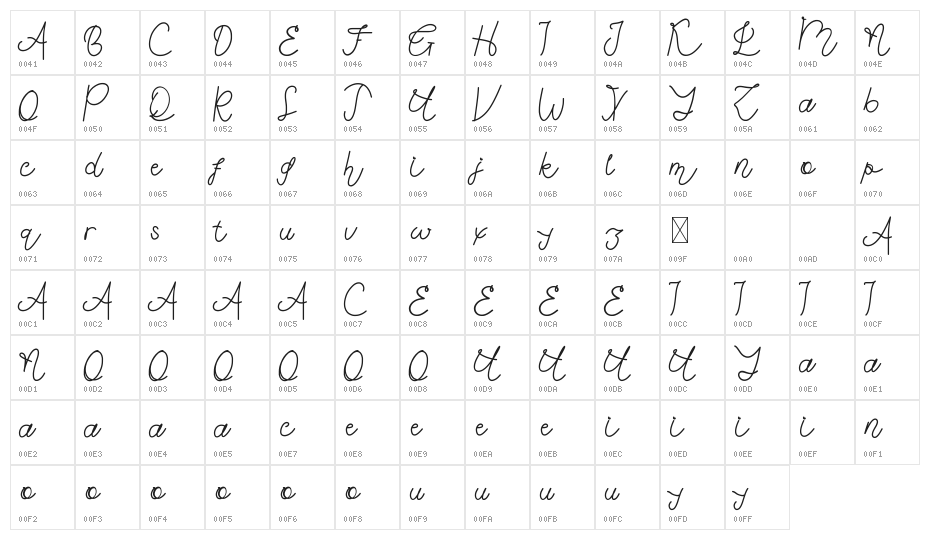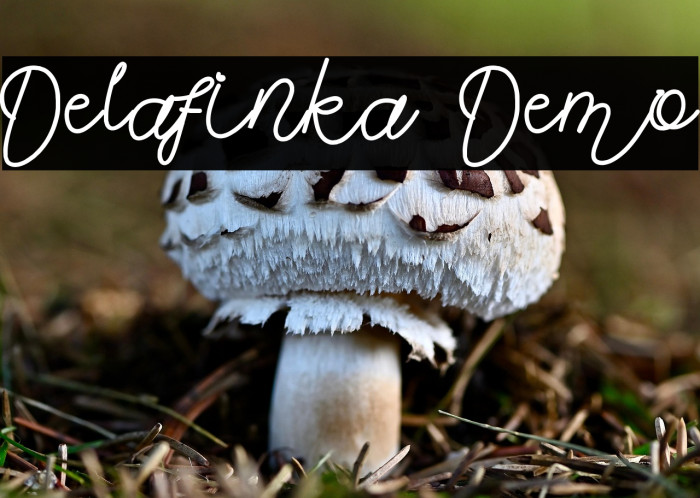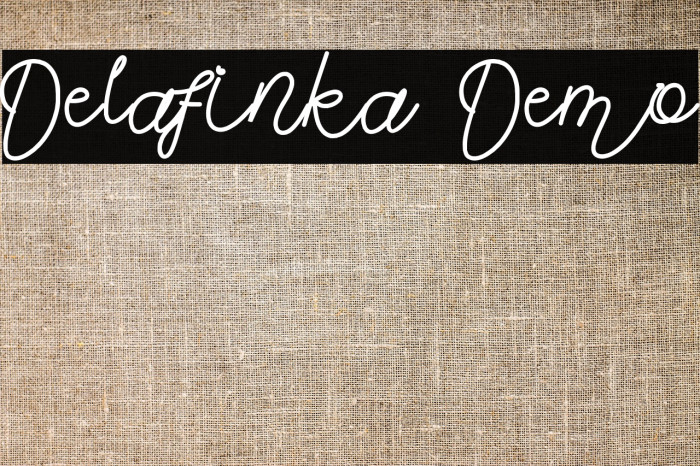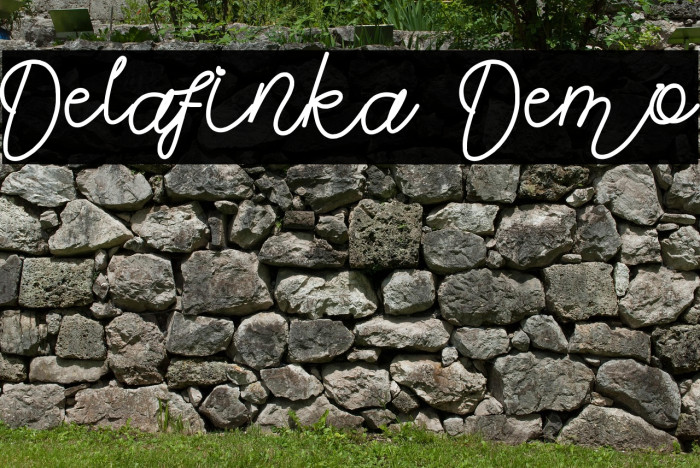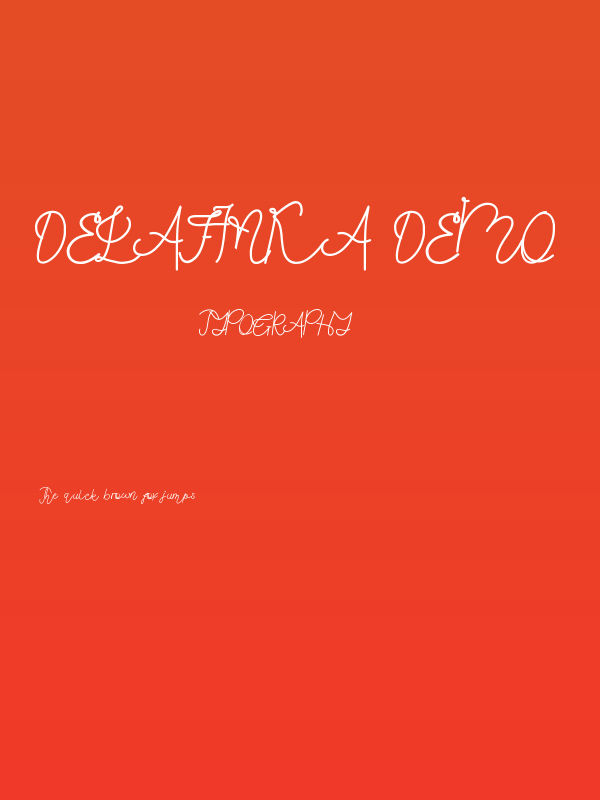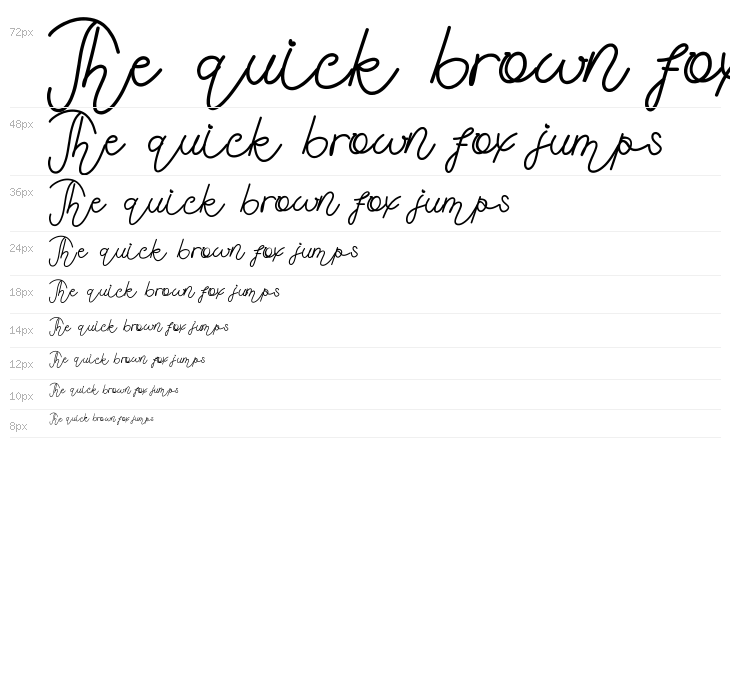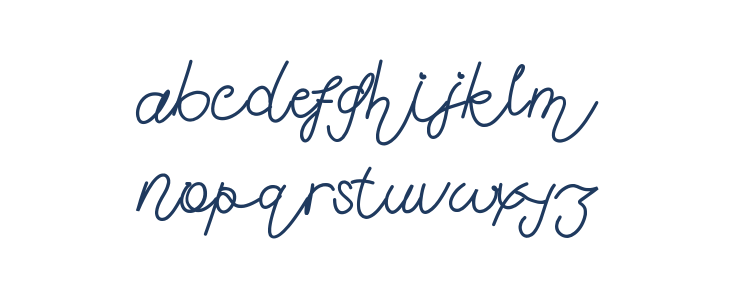
Delafinka Demo Font
Delafinka Demo Description
This font features an elegant, flowing script style that mimics the fluidity of natural handwriting. Each character is crafted with smooth, continuous strokes, giving it a personal and artistic touch. The uppercase letters are slightly more elaborate, with extended loops and curves, while the lowercase letters maintain a consistent rhythm and balance. The overall appearance is both sophisticated and approachable, making it suitable for a variety of creative applications. The font's unique charm lies in its ability to convey a sense of warmth and personality, making it ideal for projects that require a personal touch.
| Overall Style | Elegant, Artistic |
| Proposed Projects | Ideal for wedding invitations, personal branding, greeting cards, and artistic projects. |